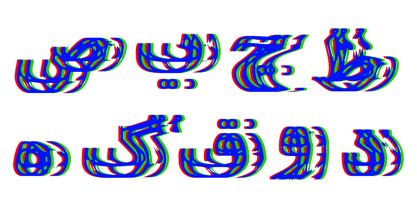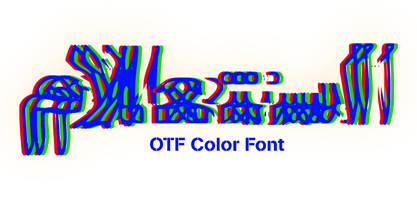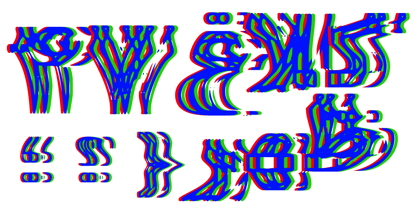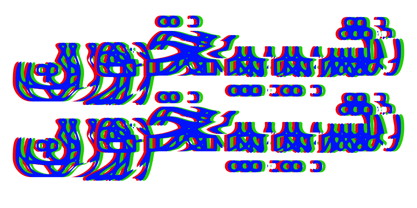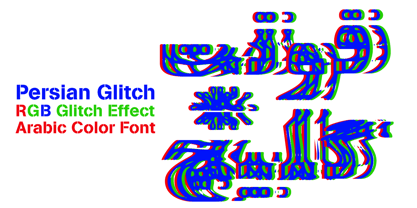
Persian Glitch
by Si47ash Fonts
The Persian Glitch Font Family was designed by Shahab Siavash and published by Si47ash Fonts. Persian Glitch contains 1 styles.
And now after some other color fonts of mine like Rangarang, RanginKaman, RanginMashq, RanginThuluth,... we have a Persian Arabic color font with Glitch effect.
Designed in RGB colors and giving a nostalgic TV vibe, reminds you of static, noise and those old color bars in old CRT monitors, Persian Glitch is an installable SVG color font.
Mesmerizing, anaglyph, distorted, fragmented and deformed, all in one Arabic font!